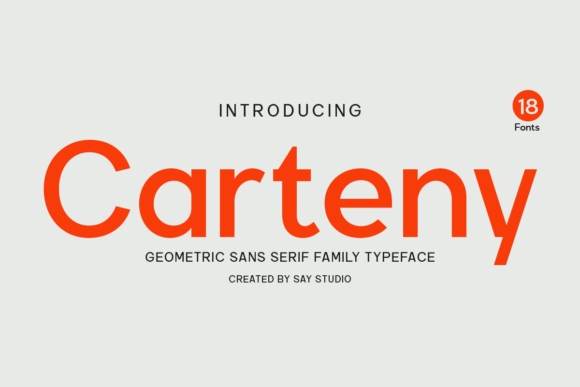
Meet Carteny: The Ultimate Geometric Sans Serif Font
Carteny is a modern geometric sans serif font family designed to deliver clarity, balance, and contemporary elegance. Built on clean geometry and precise proportions, this typeface offers a sleek visual rhythm that feels professional, versatile, and timeless—perfect for modern design systems that demand both beauty and performance.
Designed for Creatives, by Creatives
Created for branding designers, creative studios, startups, and marketing teams, Carteny provides a powerful typographic foundation for a wide range of visual projects. From brand identity, logo design, UI/UX, websites, and mobile apps to editorial layouts, advertising campaigns, social media graphics, packaging, and corporate communication, this font family ensures consistency, readability, and refined visual impact across every platform.
Key Features and Benefits
Carteny offers 18 font styles, carefully crafted weights, and harmonious spacing, giving designers full creative flexibility for building structured layouts, strong hierarchies, and polished compositions. Whether used for bold headlines or body text, Carteny ensures that your message is conveyed with clarity and style.
• ✨ Clean and elegant design: Carteny’s geometric sans serif design is perfect for modern brands and projects.
• ✅ Versatile and flexible: With 18 font styles and carefully crafted weights, Carteny can be used for a wide range of projects.
• 💡 Excellent readability: Carteny’s precise proportions and harmonious spacing make it easy to read, even at small sizes.
• 🤔 Some font styles may be overused: With 18 font styles to choose from, it’s easy to fall into the trap of overusing certain styles.
• ⚠️ May not be suitable for body text: While Carteny is excellent for headlines and titles, it may not be the best choice for lengthy body text.
The Story Behind Carteny
Carteny was designed with the goal of creating a modern, elegant, and professional font family that could be used for a wide range of projects. Inspired by the geometric sans serif fonts of the 20th century, Carteny’s designer sought to create a font that was both timeless and contemporary.
Q: What is Carteny?
A: Carteny is a modern geometric sans serif font family designed for clarity, balance, and contemporary elegance.
Q: What is Carteny used for?
A: Carteny can be used for a wide range of projects, including brand identity, logo design, UI/UX, websites, mobile apps, editorial layouts, advertising campaigns, social media graphics, packaging, and corporate communication.
Q: Is Carteny easy to read?
A: Yes, Carteny is designed for excellent readability, with precise proportions and harmonious spacing that make it easy to read, even at small sizes.
Q: Can I use Carteny for body text?
A: While Carteny is excellent for headlines and titles, it may not be the best choice for lengthy body text. However, it can be used for body text if you choose a suitable font size and style.